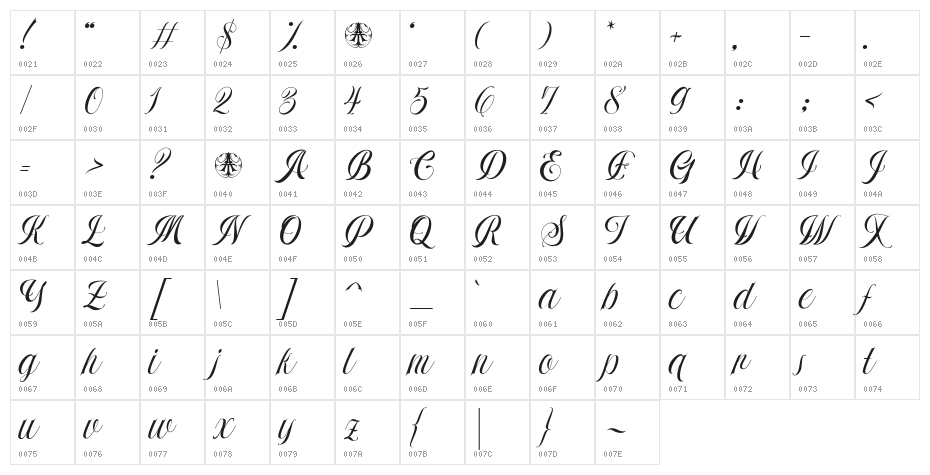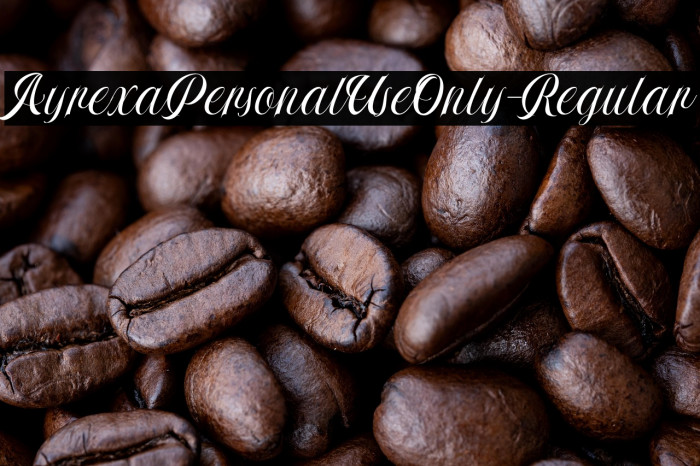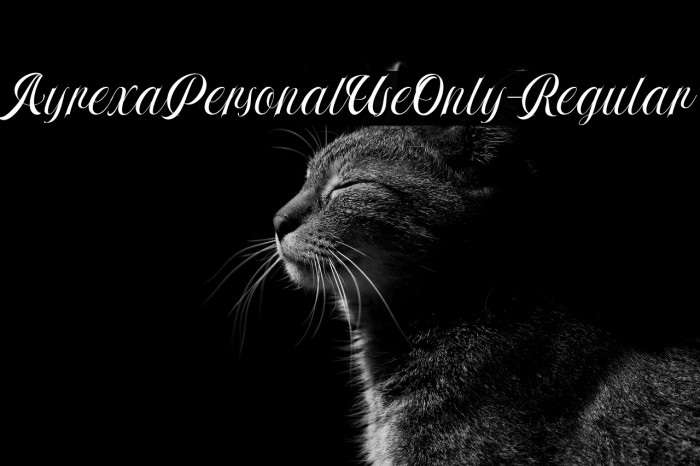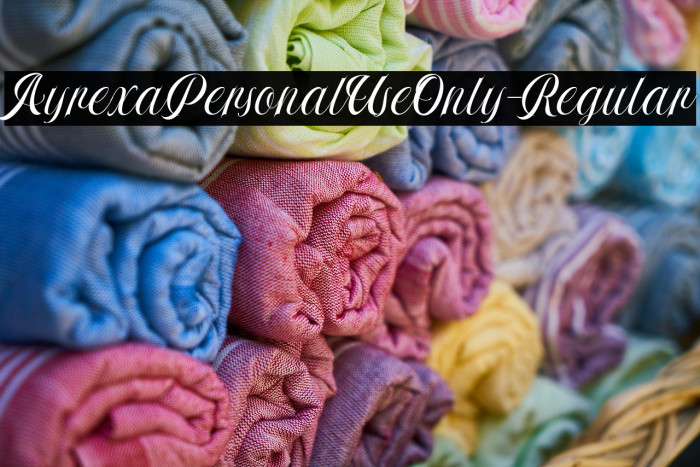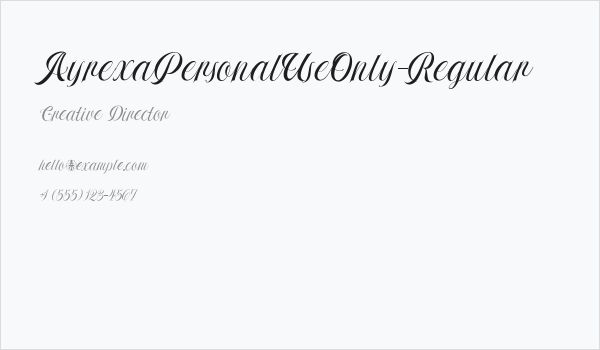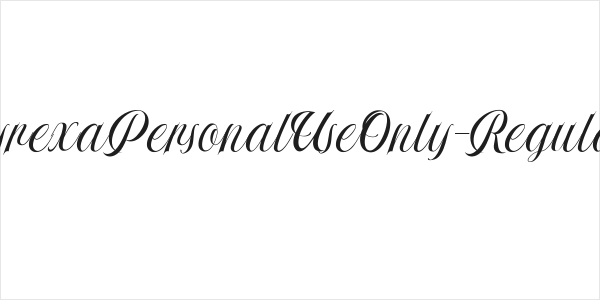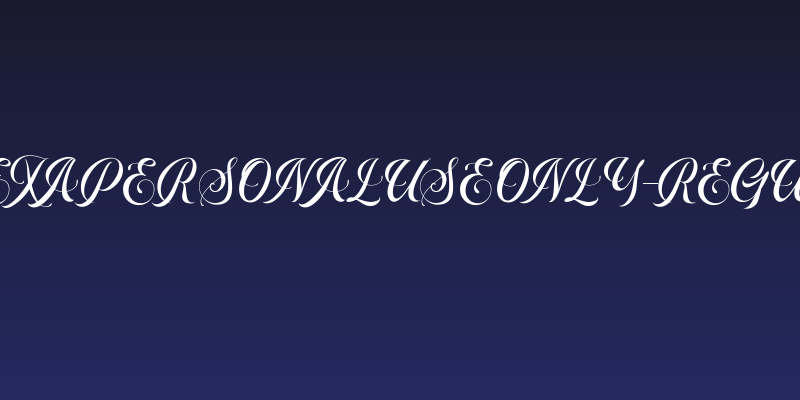
AyrexaPersonalUseOnly-Regular Font
AyrexaPersonalUseOnly-Regular Description
This elegant script font features flowing, cursive letters with a sophisticated flair. The uppercase characters are adorned with intricate swashes and flourishes, adding a touch of luxury and refinement. The lowercase letters maintain a consistent slant, enhancing the fluidity and grace of the text. Numbers and special characters are designed with the same attention to detail, ensuring a cohesive look throughout. The font's high contrast between thick and thin strokes gives it a dynamic and eye-catching appearance, making it ideal for formal invitations, branding, and decorative purposes.
| Overall Style | Elegant |
| Use Case | Invitations, Branding, Decorative |
| Proposed Projects | Ideal for wedding invitations, luxury branding, elegant signage, and decorative projects. |